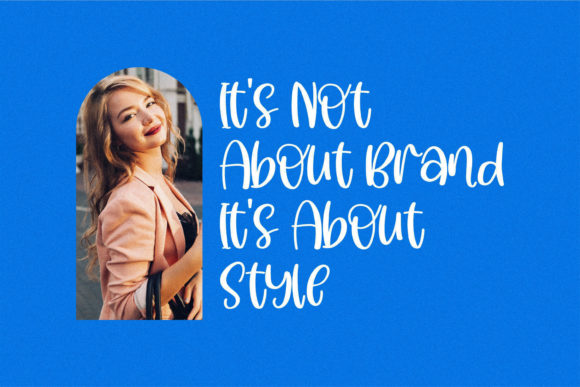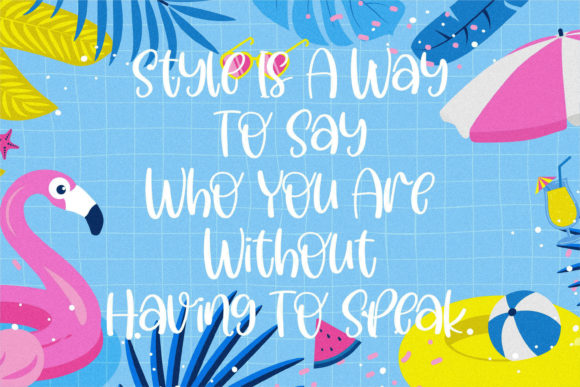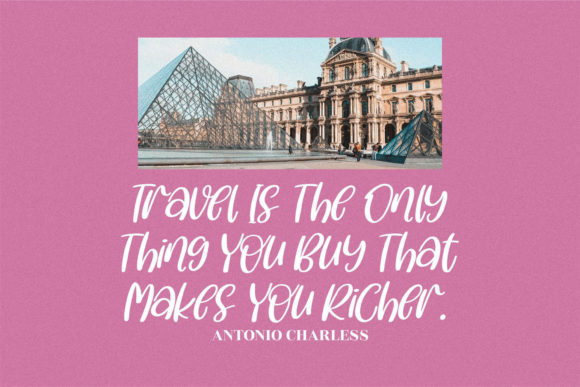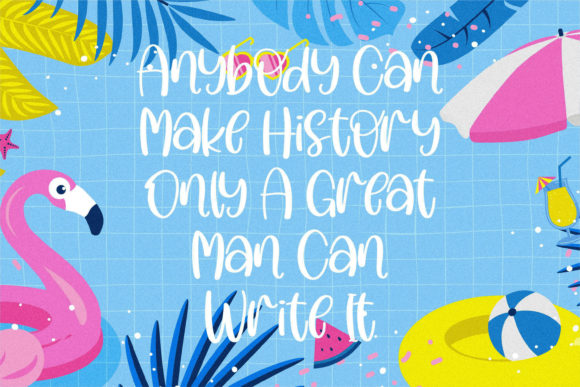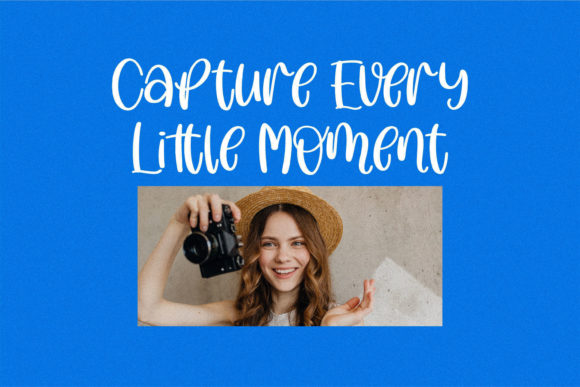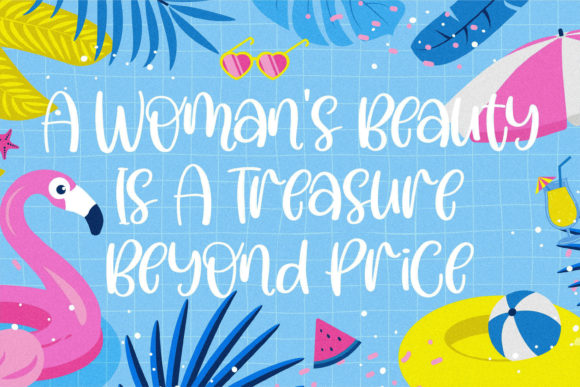
Introduction to Lombok Beach Font
Have you ever stared at a blank canvas, brainstorming ideas for your next creative project, only to be stuck in a rut? You know, that feeling when you just can’t seem to find the perfect design element to bring your vision to life? That’s where Lombok Beach Font comes in – a delightful, high-quality addition to any design resource that’s sure to add an exciting touch to your creations.
This free download font is a breath of fresh air, featuring a quirky, handwritten style that’s perfect for designers looking to inject some personality into their work. With its transparent background and round, jolly letters, Lombok Beach Font is a design treasure that’s sure to elevate your projects to the next level.
Whether you’re working on a branding project, a social media campaign, or simply a fun design for a friend, this creative resource is a valuable addition to any designer’s toolkit.
Key Features of Lombok Beach Font
- Features a unique, hand-drawn design style that adds a touch of personality to any project
Honest Review: Lombok Beach Font
I recently had the chance to work with the Lombok Beach Font, a high-quality design resource that offers a free download. At first glance, I was impressed by the clean and elegant design of this font, which features a transparent background that makes it easy to integrate into creative projects.
- ✨ The font’s high-quality design makes it suitable for various creative projects, from print materials to digital interfaces.
- ✨ The transparent background allows for seamless integration into any design, making it a versatile design resource.
- ⚠️ The font’s character set is limited, which may not be suitable for projects that require a wide range of characters, such as international typography.
- ⚠️ The font’s legibility can be affected by the size and spacing, so designers need to be mindful of these factors when using it in their projects.
Overall, I think the Lombok Beach Font is a great addition to any designer’s toolkit, especially for those working on creative projects that require a clean and elegant design. With its high-quality design and transparent background, it’s an excellent choice for designers looking for a versatile and free design resource.
Tips for Getting the Most Out of Lombok Beach Font
Here are a few tips for getting the most out of the Lombok Beach Font:
- Use the font on a transparent background to create a clean and minimalist design.
- Combine the font with other design elements, such as images and shapes, to create a visually appealing design.
- Experiment with different font sizes and styles to create a unique and eye-catching design.
The Lombok Beach Font is a versatile design resource that can be used in a variety of creative projects, including:
- Posters
- Brochures
Can I customize the Lombok Beach Font for my specific design needs?
Yes, the Lombok Beach Font is a versatile design resource that can be easily customized to meet the specific needs of your project. The font is available in a range of styles and sizes, and can be edited using most design software. Additionally, the font’s transparent background makes it easy to combine with other design elements and create a unique and eye-catching visual effect.